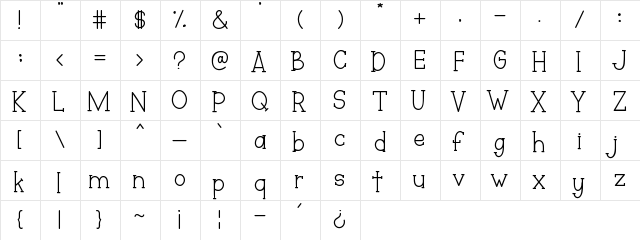
Slubby Slurpie Regular
Design Context for Slubby Slurpie Typeface
Slubby Slurpie takes a measured approach to typography — its balanced proportions and neutral character make it a reliable workhorse for both digital and print work.